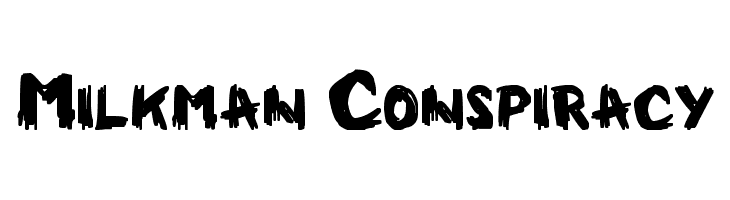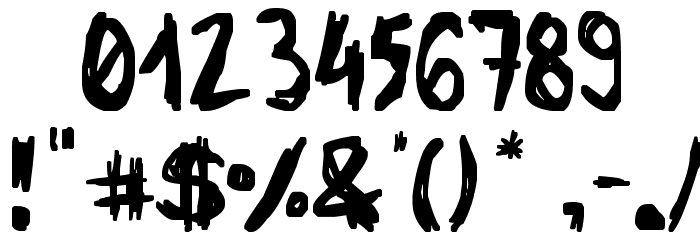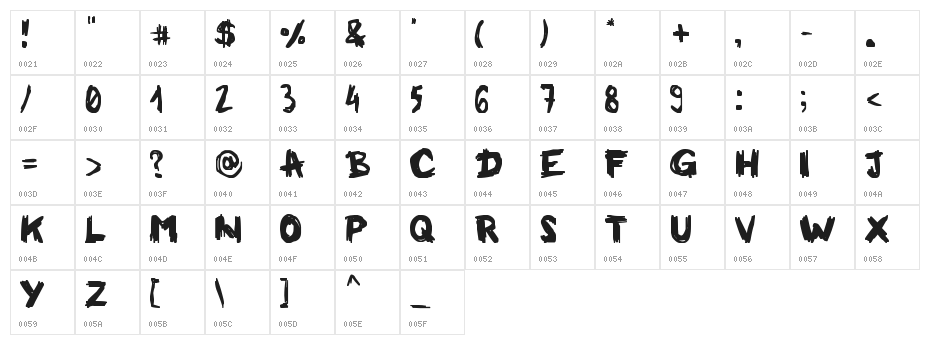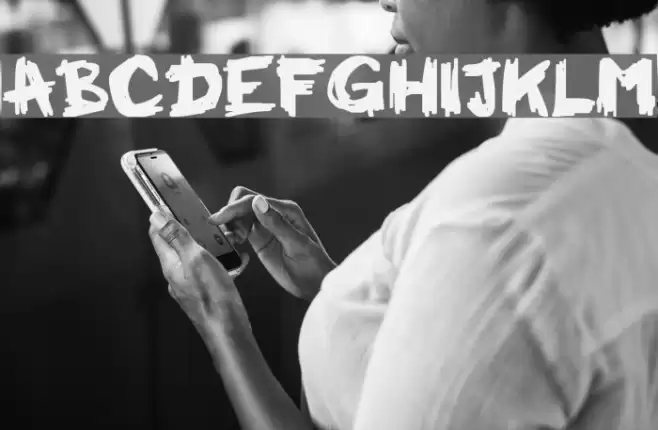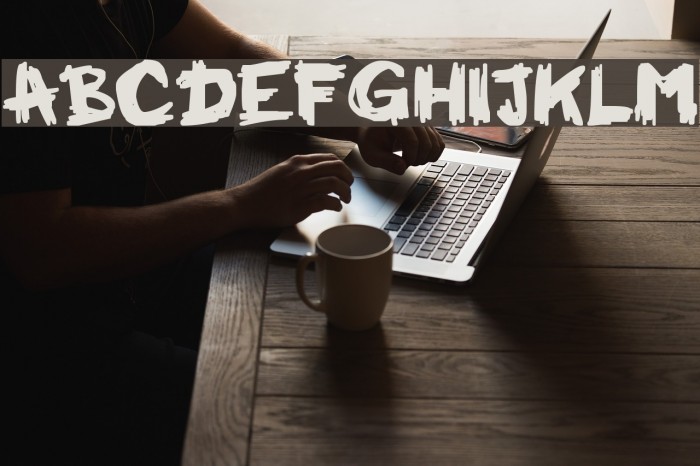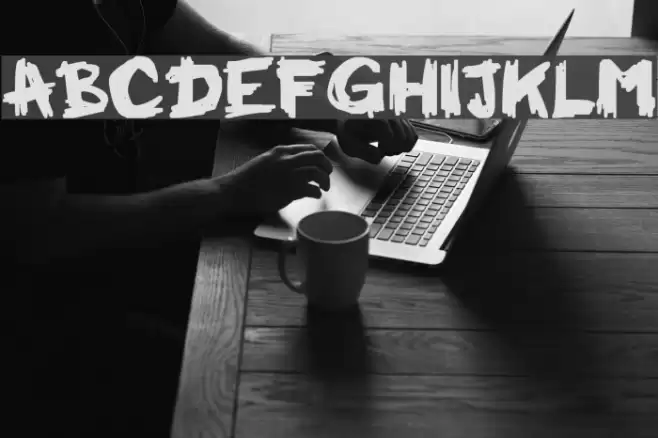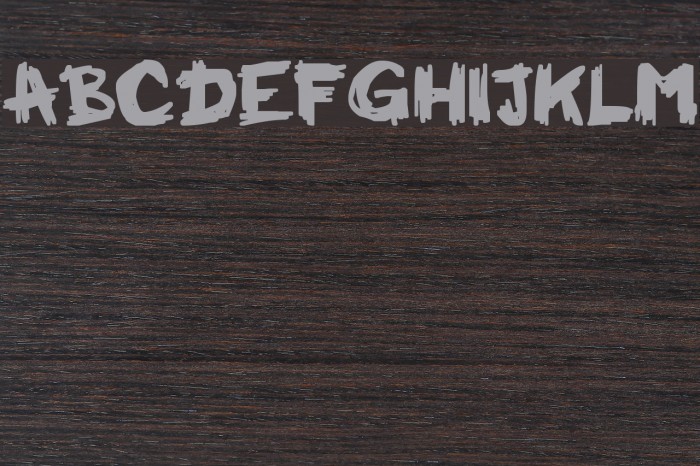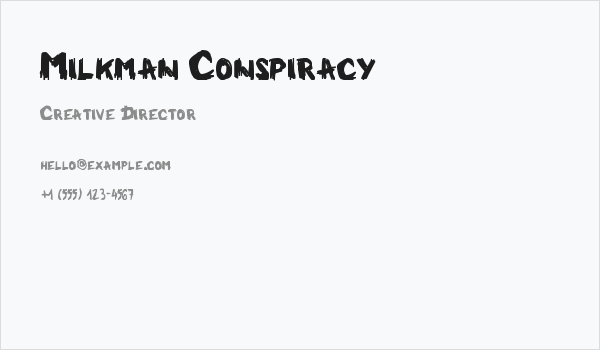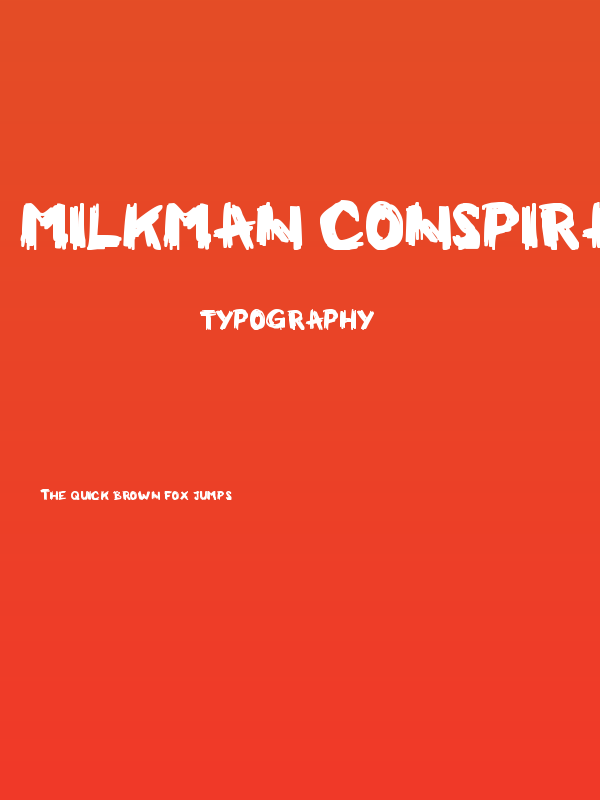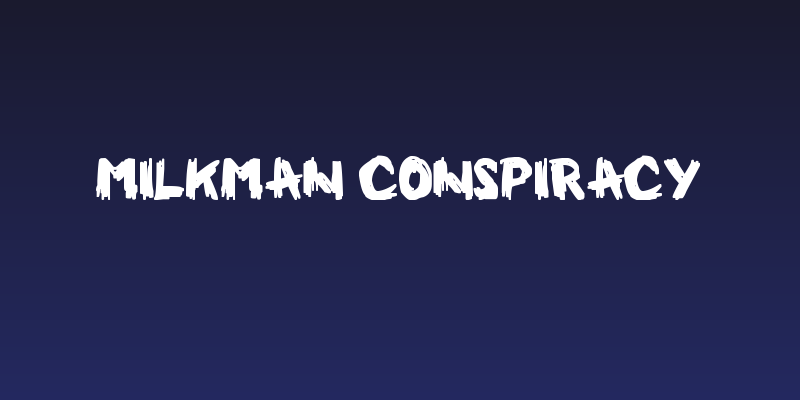
Milkman Conspiracy Font
Milkman Conspiracy Description
This font exhibits a bold, expressive style with a hand-drawn, brush-like appearance. The characters are irregular and dynamic, giving a sense of movement and energy. The uppercase and lowercase letters maintain a consistent thickness, with some variation in stroke width that adds to the font's lively and spontaneous feel. The numbers and special characters follow the same bold and playful design, making the font suitable for creative and informal applications. The overall look is both artistic and slightly chaotic, capturing attention with its unique and unconventional style.